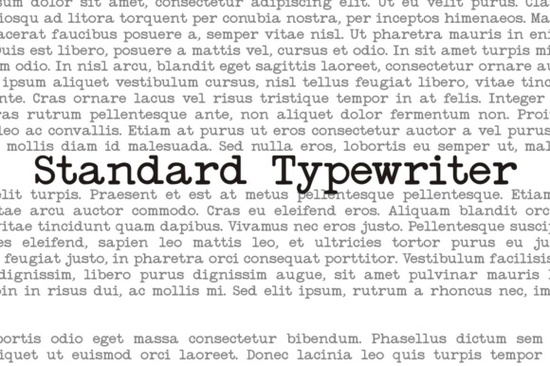
If you're looking for a font that can add a touch of nostalgia and simplicity to your designs, the Standard Typewriter Font is a great choice. This simple sans serif font is perfect for mimicking the effect of old typewriting machines, making it ideal for designers, crafters, and print-on-demand sellers who want to give their projects an authentic, vintage feel.
Why Choose the Standard Typewriter Font?
The Standard Typewriter Font is designed to be both functional and stylish. Its clean, straightforward lines make it easy to read, while its classic typewriter aesthetic adds a unique charm. Whether you're creating a retro-themed poster, a vintage-style invitation, or a nostalgic logo, this font can help you achieve the look you want.
How Does It Compare to Other Serif Fonts?
While the Standard Typewriter Font is classified as a sans serif, it shares some characteristics with serif fonts in terms of its readability and classic appeal. For example, if you're familiar with The Stripes Editorial Font, you'll notice that both fonts have a strong, legible presence. However, the Standard Typewriter Font has a more minimalist and modern feel, which can be a refreshing change for certain projects.
What Makes It Ideal for Print-On-Demand Sellers?
Print-on-demand sellers often need versatile fonts that can work across a variety of products, from t-shirts to mugs to wall art. The Standard Typewriter Font is particularly well-suited for these needs because of its clarity and versatility. Its simple, clean lines ensure that text remains legible even when printed on different materials and at various sizes.
Can It Be Used for Both Digital and Print Projects?
Absolutely! The Standard Typewriter Font is highly adaptable and can be used for both digital and print projects. For digital use, it works well in web designs, social media graphics, and e-books. In print, it's perfect for brochures, business cards, and any other printed material where a clean, readable font is essential.
How Can I Incorporate It into My Designs?
Incorporating the Standard Typewriter Font into your designs is straightforward. Here are a few tips:
- Combine with Other Fonts: Pair it with a more decorative font like Sage Averal Font for a balanced and visually appealing design.
- Use for Headings and Subheadings: Its bold, clear style makes it ideal for headings and subheadings, helping to draw attention to key information.
- Add a Vintage Touch: Use it in designs that aim to capture a vintage or retro theme, such as wedding invitations or themed party decorations.
Is It Suitable for Small Businesses?
Yes, the Standard Typewriter Font is a fantastic choice for small businesses. Its professional yet approachable style can help create a memorable brand identity. Whether you're designing a logo, a business card, or a website, this font can add a touch of sophistication and reliability to your brand.
Practical Checklist for Using the Standard Typewriter Font
- Test the font in different sizes and colors to see how it looks in your design.
- Consider pairing it with other fonts to create a harmonious and visually interesting design.
- Use it for headings, subheadings, and body text where a clean, readable style is needed.
- Experiment with different applications, such as digital graphics, print materials, and branding elements.
By following these steps, you can effectively incorporate the Standard Typewriter Font into your creative projects and give them a timeless, classic look.